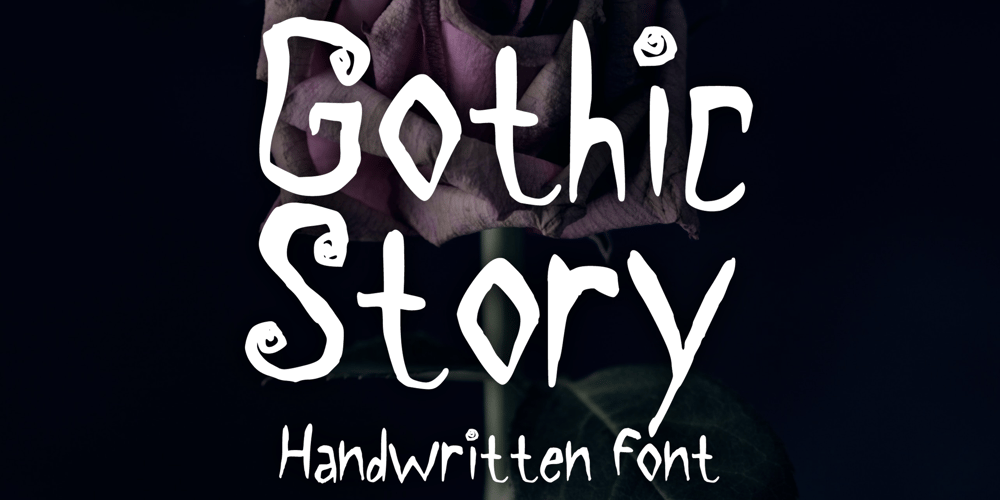
Gothic Story Font Family was designed by Gabriel Valentinus and published by Mvmet. Gothic Story contains 1 styles and family package options. Gothic Story is a kid-friendly gothic handwritten display font, inspired by 90s gothic movies. It will be perfect for your gothic and Halloween-themed needs! You can use it for anything ranging from t-shirts and clothing, to your gothic book designs, Halloween party needs, greeting cards, stickers, posters, banners, or anything that needs a cool touch. Try it to create fabulous designs and feel the gothic and Halloween vibes with it!